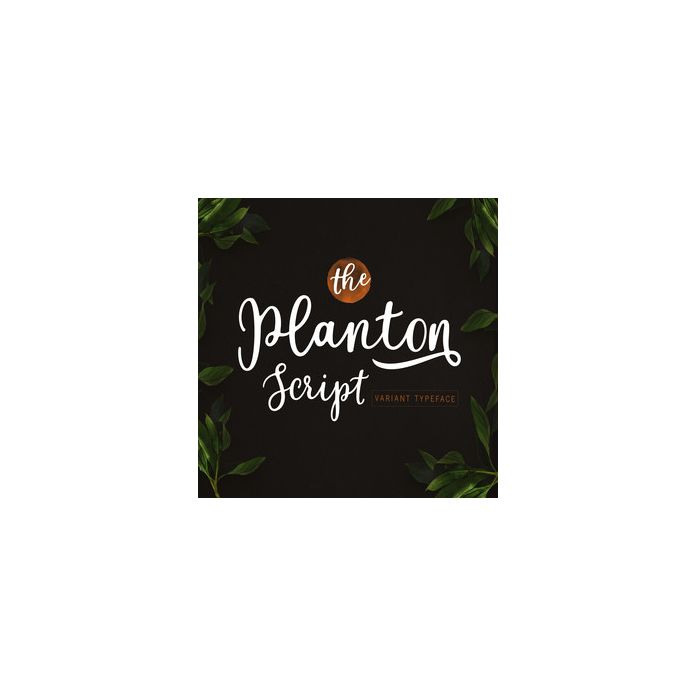
Planton Script is a bold and multi purpose typeface that combines uniquely connected hand strokes. It is suitable for logos, packaging, titles, posters, t-shirts, etc.
It contains a total of 433 characters 2 regular & slant models including various punctuation, numbers, and multilingual support. Fonts also contain Swash styles, alternative Stylistic Sets.